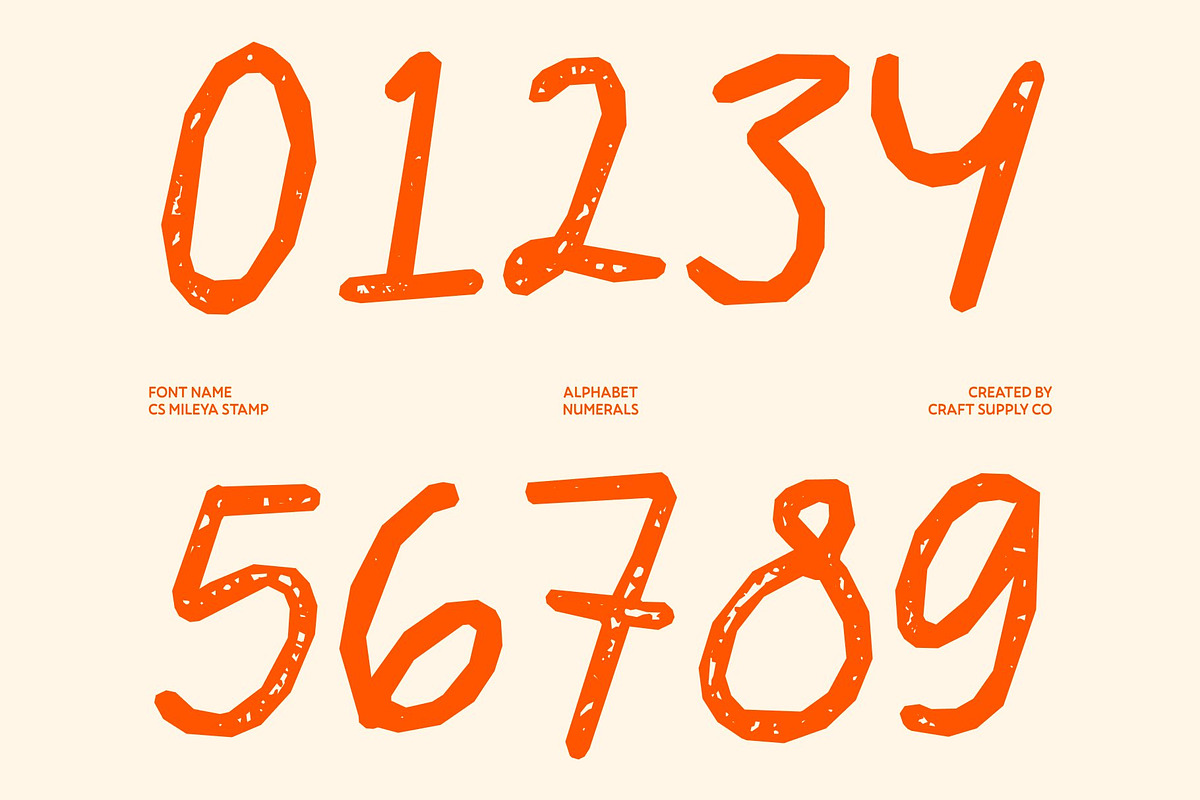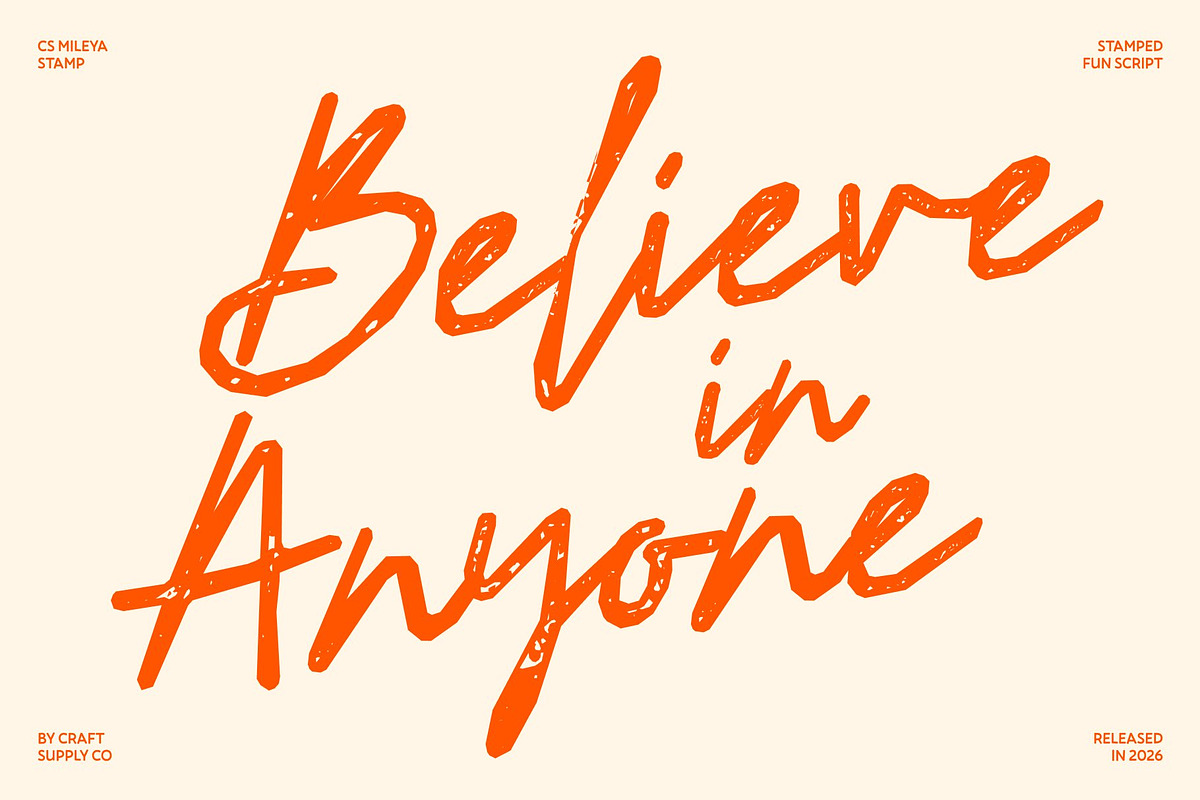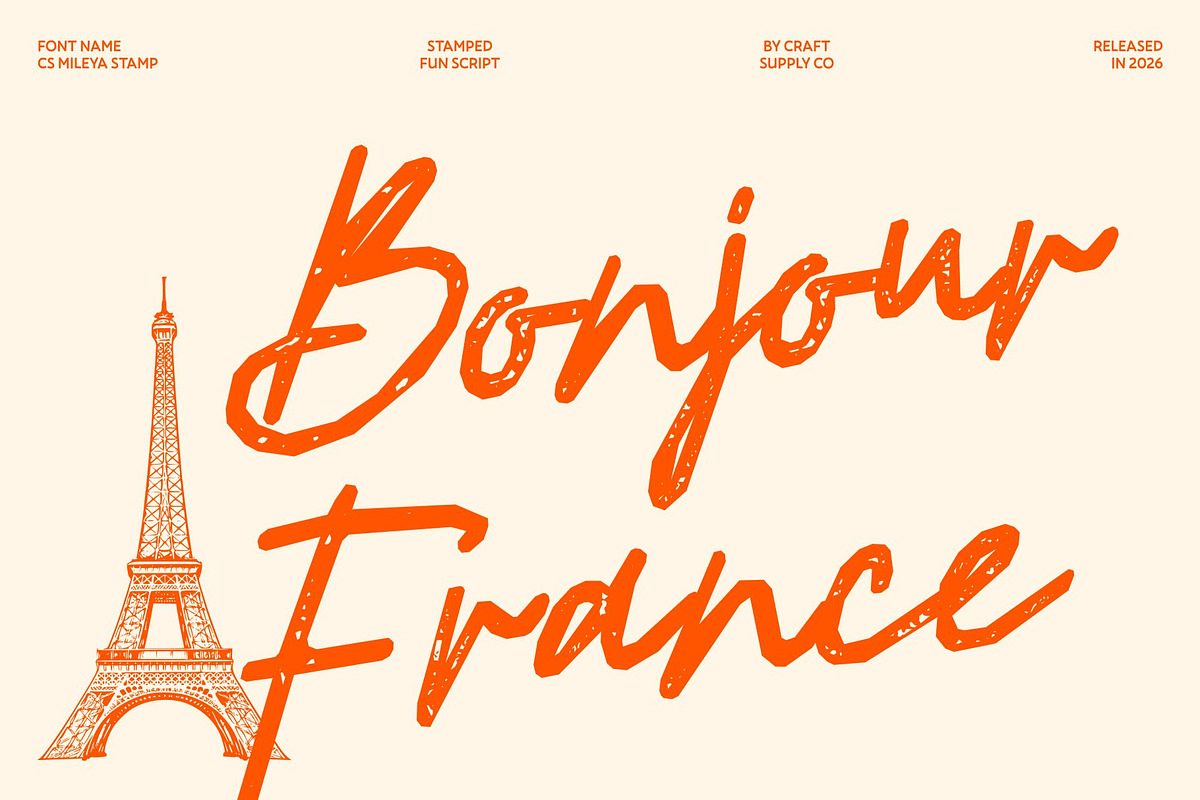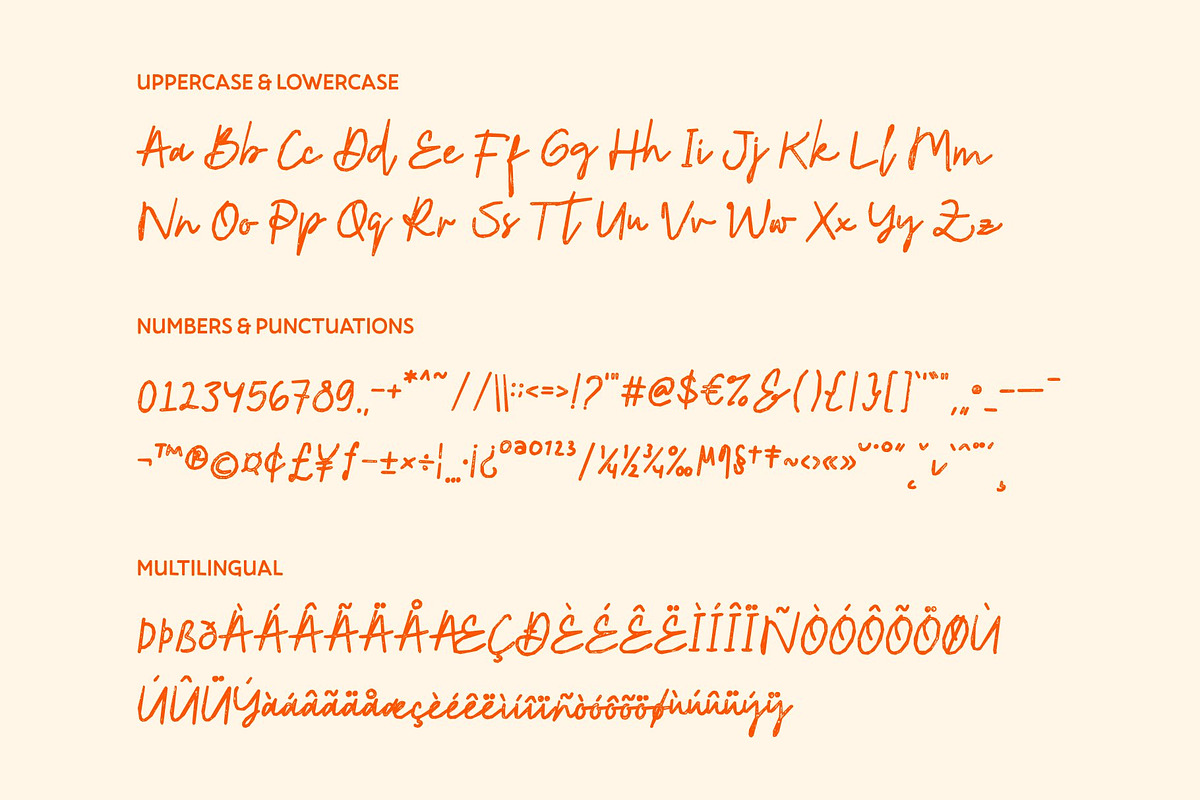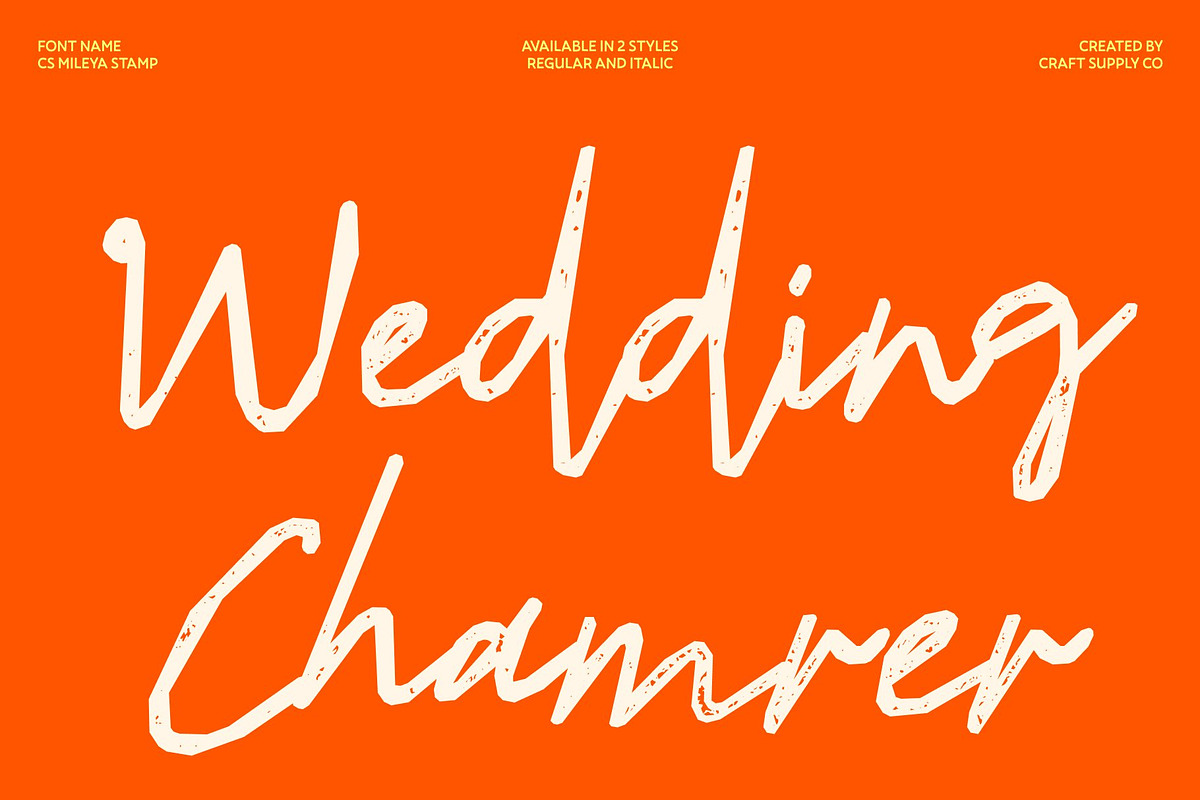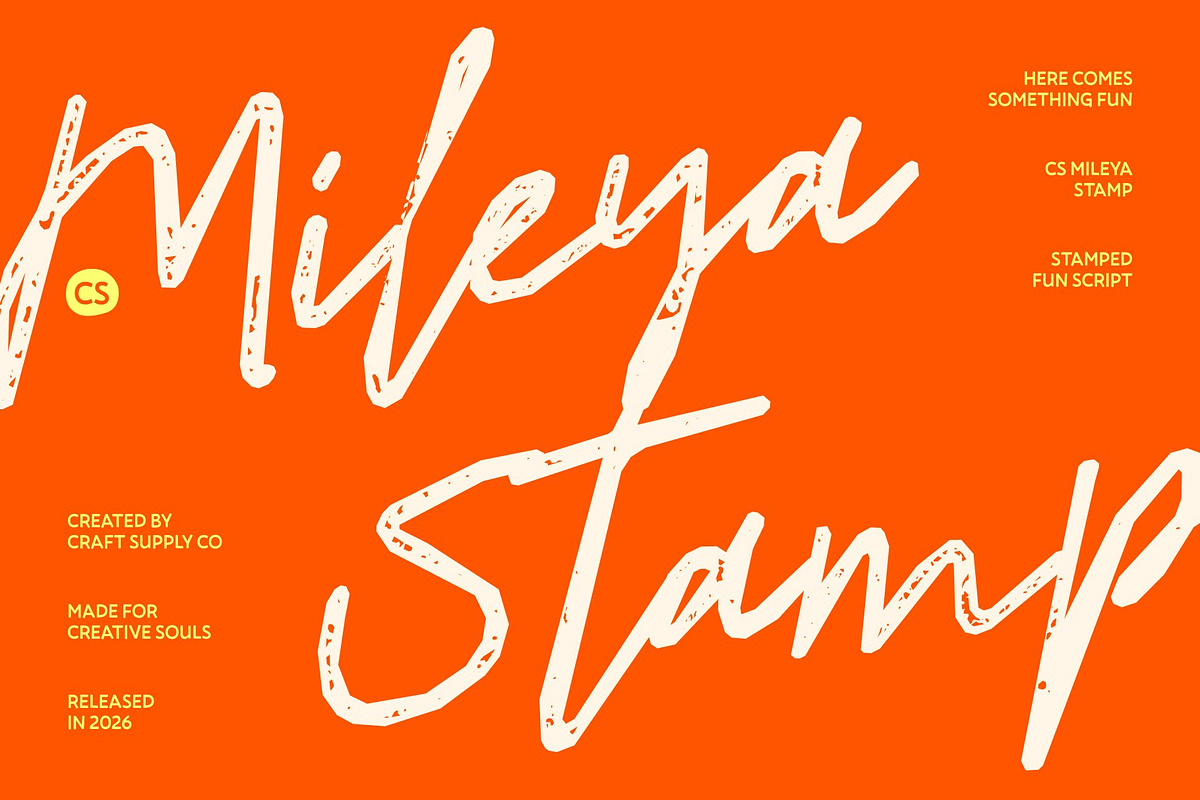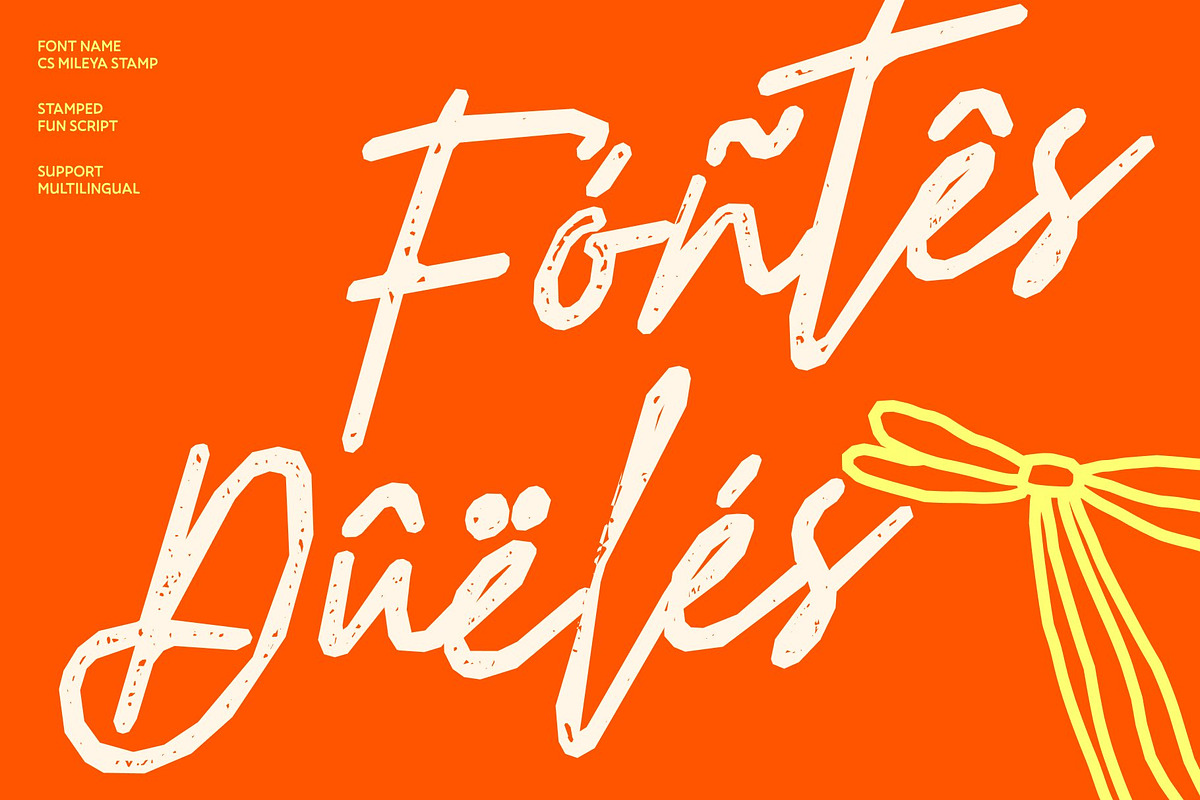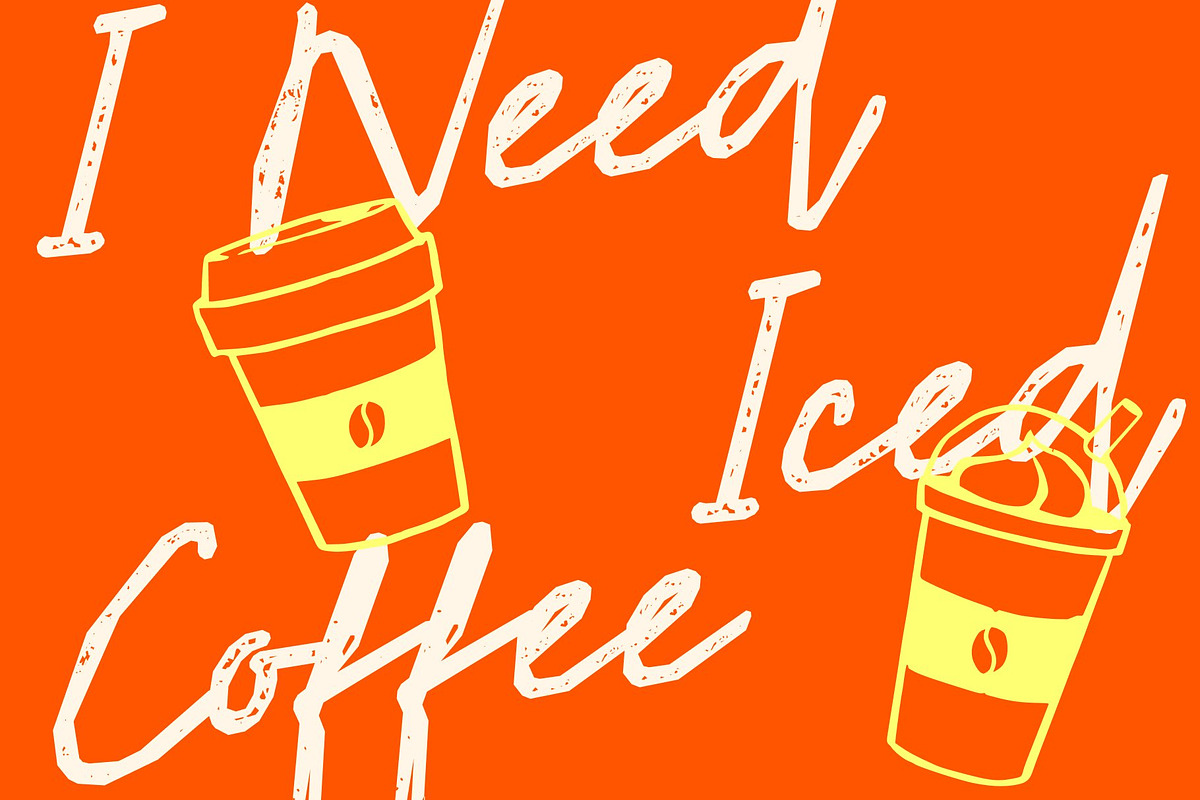
CS Mileya Stamp
CS Mileya Stamp – Graceful, Stylish, and Modern Script Elegance
Flowing Script with a Vintage Stamp Finish This is a refined script font defined by smooth, flowing strokes and elegant curves. Its graceful rhythm creates a luxurious and polished feel, while the stamp texture introduces a subtle vintage character that adds depth, warmth, and handcrafted charm to every letter.
Elegant Curves with Artistic Texture The fluid connections and delicate calligraphic details transform simple words into sophisticated visual statements. Enhanced by the stamped effect, the letterforms gain a soft artistic texture that blends modern beauty with timeless appeal, maintaining readability while elevating visual impact.
Perfect for Weddings, Fashion, and Luxury Branding From romantic wedding invitations and fashion branding to luxury editorials and premium packaging, this font brings refined elegance to high-end projects. Its stylish personality pairs beautifully with minimalist layouts, soft color palettes, and upscale branding concepts.
Versatile Sophistication Across Media Designed for both digital and print use, this font adapts effortlessly to logos, social media graphics, magazine layouts, and product packaging. Combining contemporary script elegance with a subtle vintage touch, it delivers charm, romance, and polished sophistication in every application.
CS Mileya Stamp Regular
CS Mileya Stamp Italic